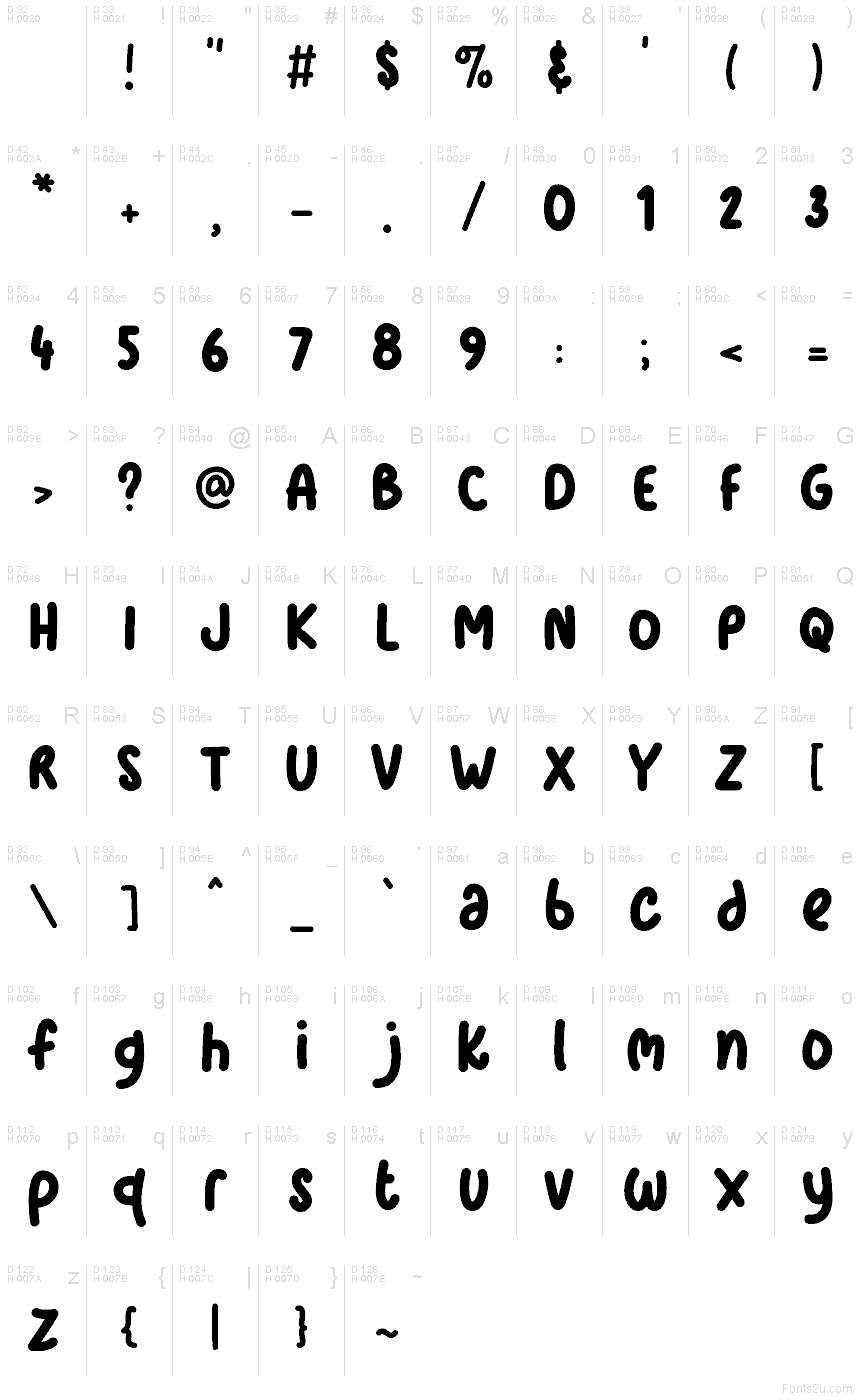
Pink Story
Pink Story font by Dm Letter Studio - Dimas Prasetyo is a free marker handwritten font. It solves a familiar challenge: getting playful energy without sacrificing legibility. The pillowy strokes, soft blob terminals, and even rhythm read fast at a glance, while the chunky shapes keep lines feeling warm, not messy. It’s breezy and friendly—like lettering done with a thick felt marker on glossy paper.
Using Pink Story, headlines pop on kids’ branding, party invitations, snack packaging, stickers, social posts, classroom posters, and YouTube thumbnails. The spacing stays compact, so titles hold together in tight layouts, and the rounded forms invite cheerful color palettes. Pair this free font with a clean light sans for body copy, or set it large with a touch of extra tracking to brighten the page.